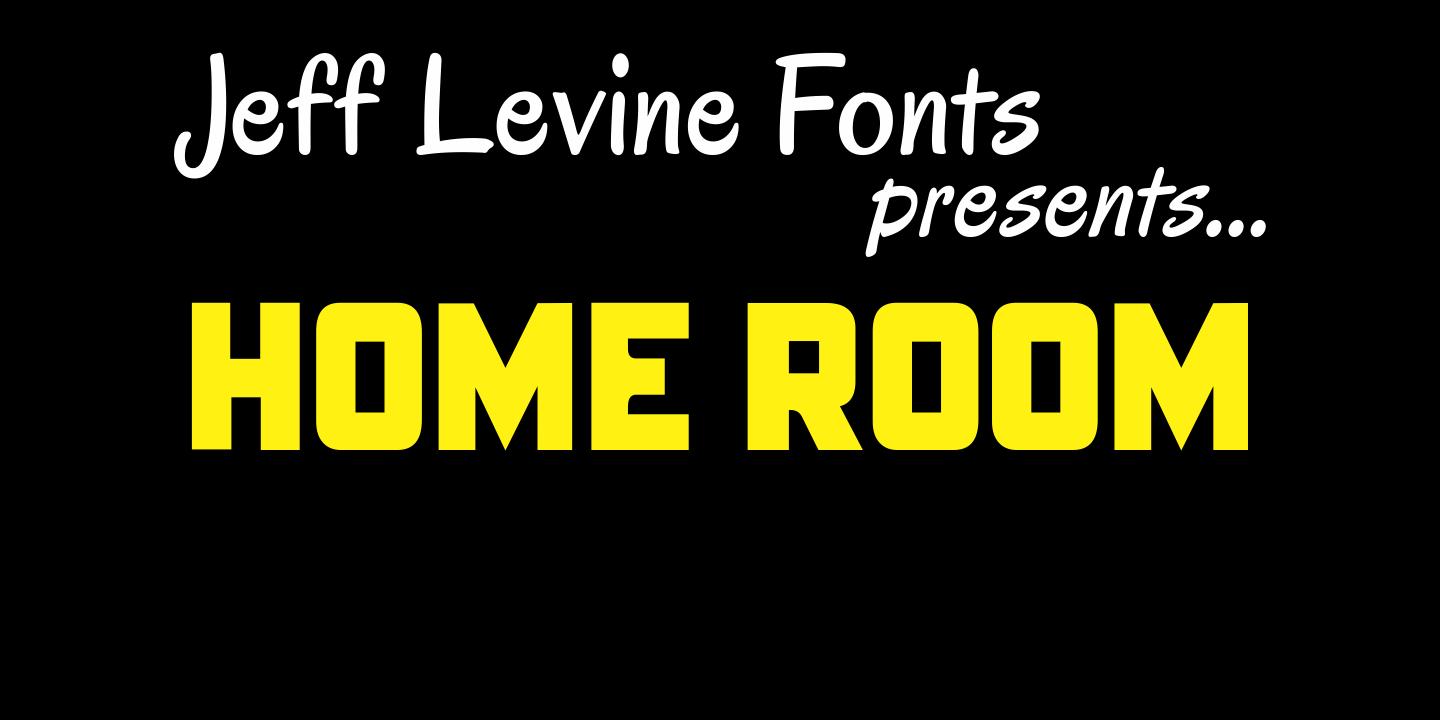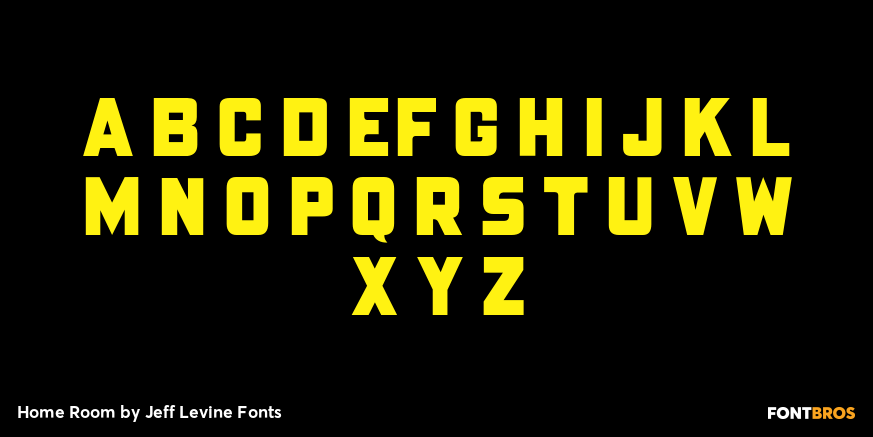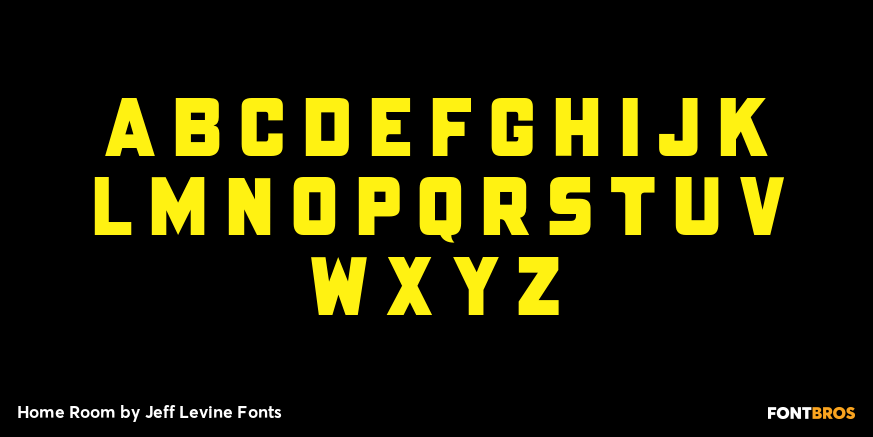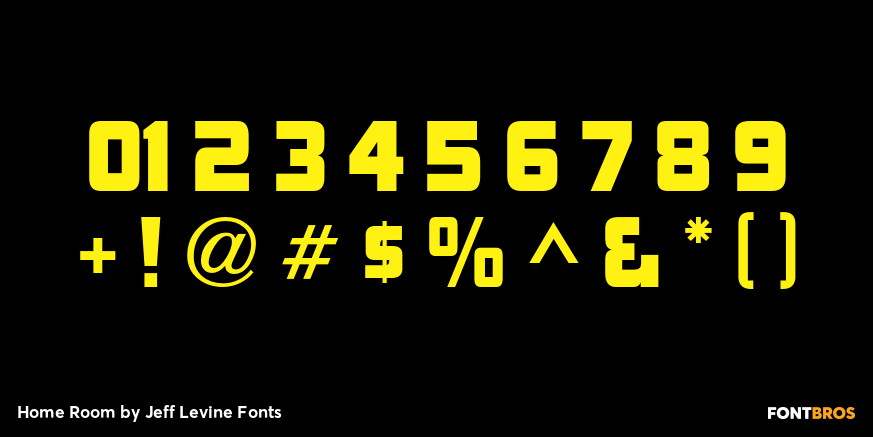
Home Room
The inspiration for Home Room JNL was a 1950s-era package of die cut cardboard letters and numbers manufactured for educators by the Mutual Aids Company of Los Angeles, California. Pre-cut lettering was popular with teachers who used them in their classrooms for posters, bulletin boards, displays and flash cards. These bold, blocky letters are great for headlines or for recreating the look of school days past.